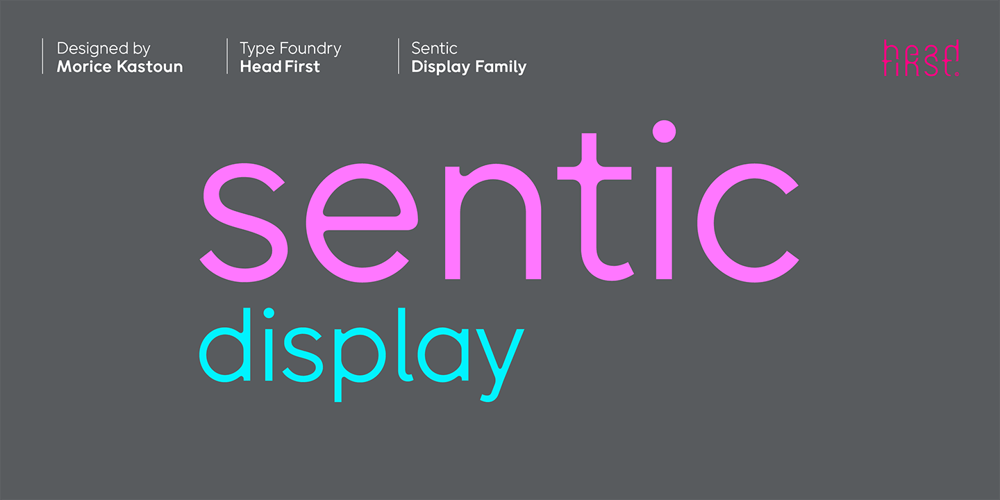
Sentic Display Font Family was designed by Morice Kastoun and published by HeadFirst. Sentic Display contains 8 styles and family package options. Designed by Morice KastounSentic Display, s a san-serif font based on geometric patterns with humanist elements. Sentic Display incorporates rounded intersecting forms. The font exploits the common affective patterns associated with natural language, and the patterns associated with text and speech.The name sentic was instigated and named by Austrian neuroscientist Manfred Clynes.Which is the study of waveforms of touch, emotion, and music.